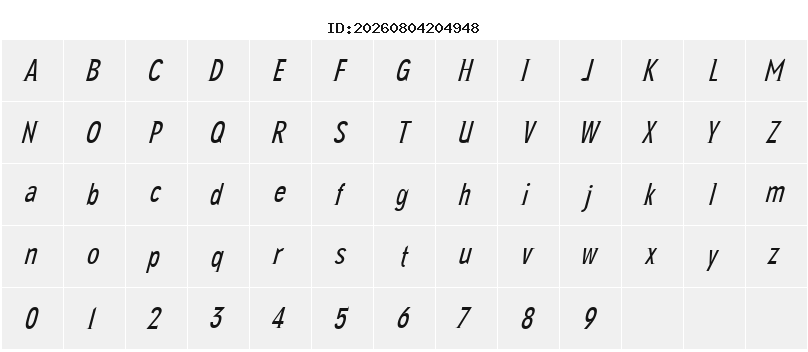
NewGlobalLight Preview
• Font Name: NewGlobalLight
• Font ID: Macromedia Fontographer 4.1.5 NewGlobalLight Italic
• Full Font Name: NewGlobalLight Italic
• Version: Macromedia Fontographer 4.1.5 17/12/2003
• PostScript Name: NewGlobalLightItalic
About NewGlobalLight.ttf
NewGlobalLight.ttf is a modern, elegant sans-serif font designed for ultimate readability and visual harmony. Perfect for branding, headlines, web design, and print materials.